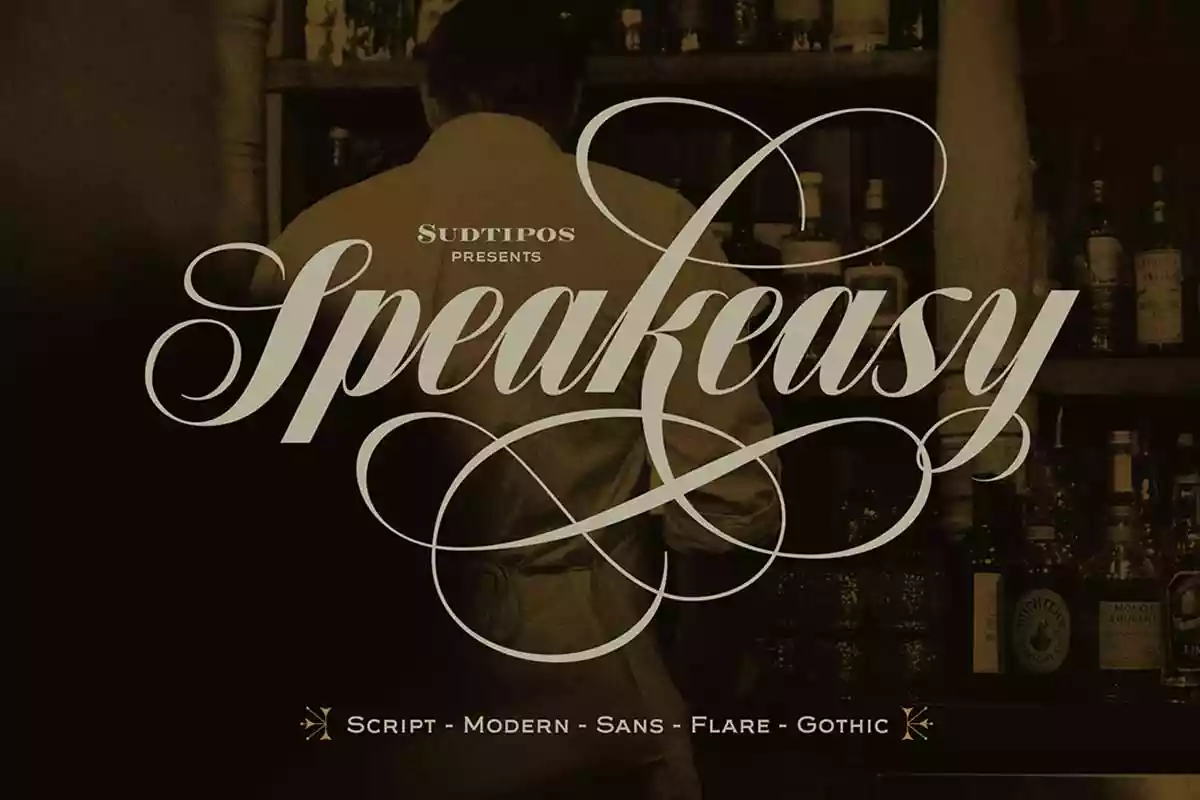
Speakeasy Font
The Speakeasy font family is a carefully crafted collection of five distinct typefaces, designed to bring elegance and vintage charm to various design projects. This versatile set allows designers to create sophisticated menu layouts, liquor labels, café signage, restaurant branding, and nostalgic visual compositions. Inspired by one of Buenos Aires’ renowned speakeasies, the fonts combine classic letterforms with an early 1900s aesthetic, offering a timeless appeal that enhances any vintage-themed project.
The font collection includes a flowing script, a subtle wedge serif, a refined flare serif, a clean sans serif, and a bold Didone, each contributing to a well-rounded and stylish typographic experience. The script font takes inspiration from vintage German lettering books, while the other fonts reflect the refined signage of early 20th-century street advertising. Additional features such as swashes, decorative flourishes, and alternative glyphs provide designers with creative flexibility. The set also includes small-cap fonts, uppercase and lowercase variations, and ornamental elements to refine and enhance any design.